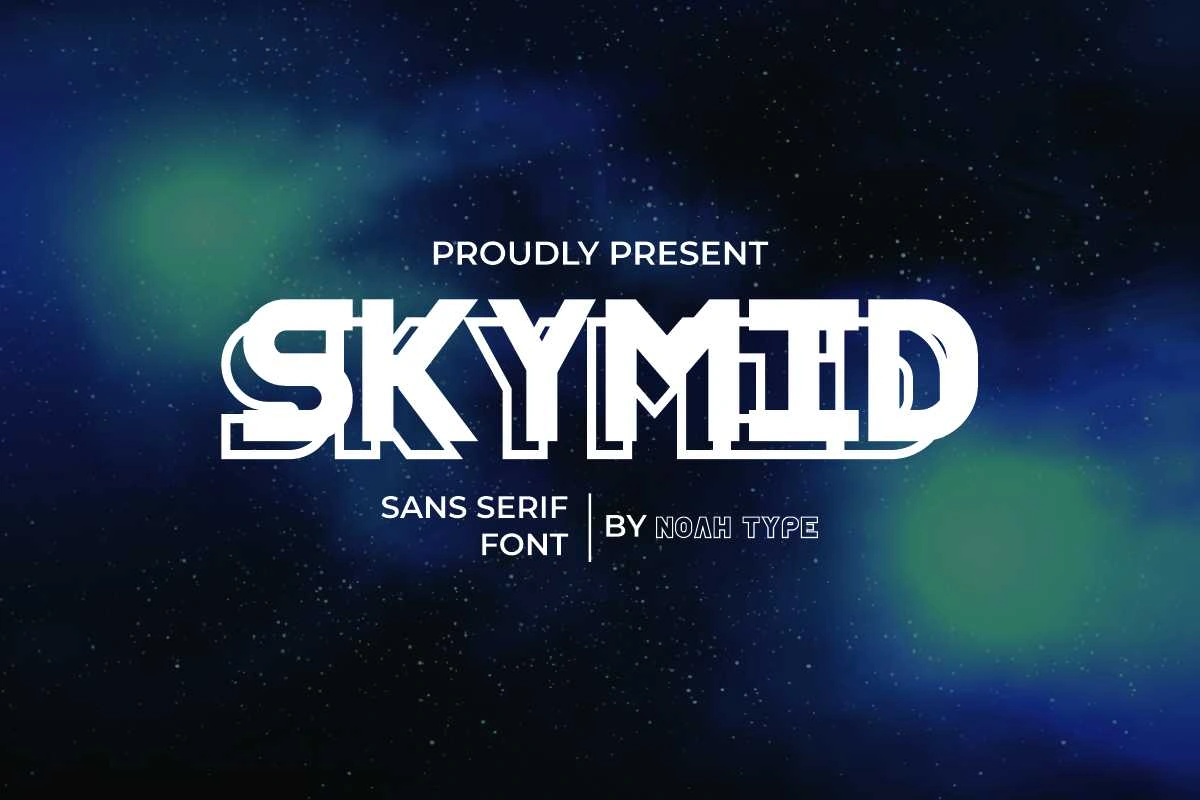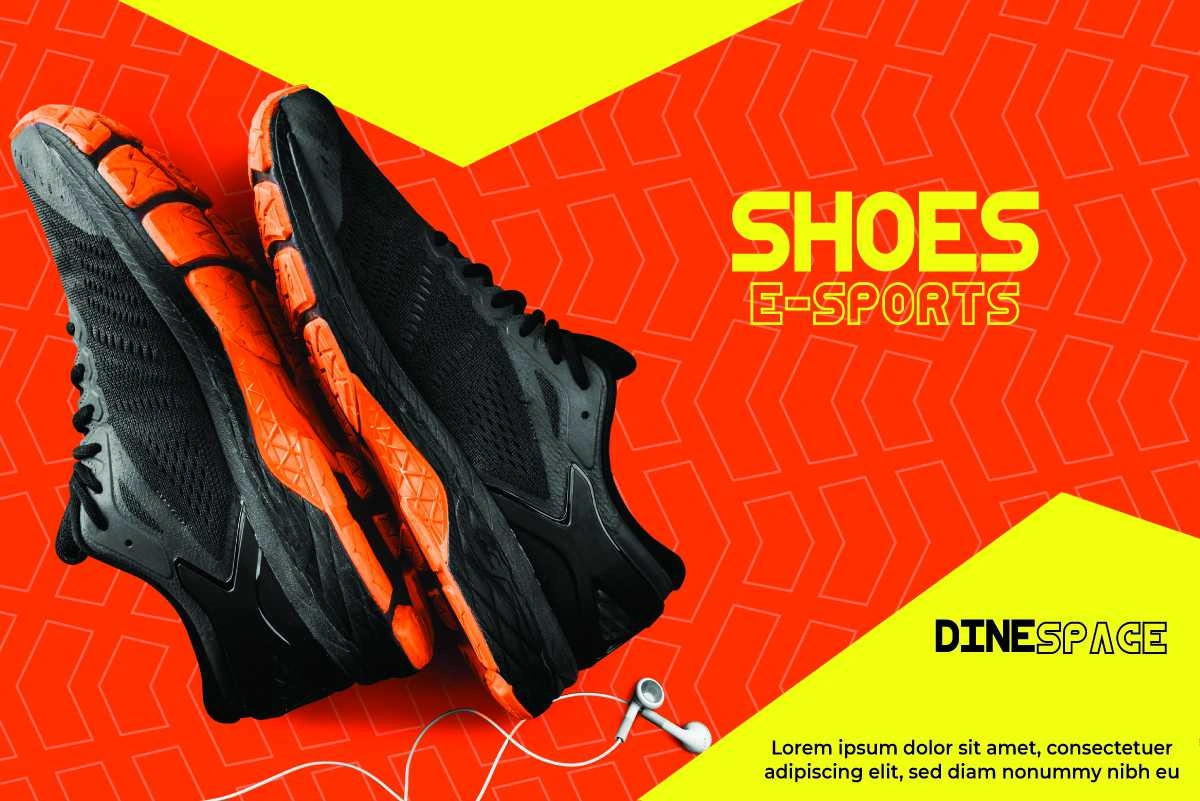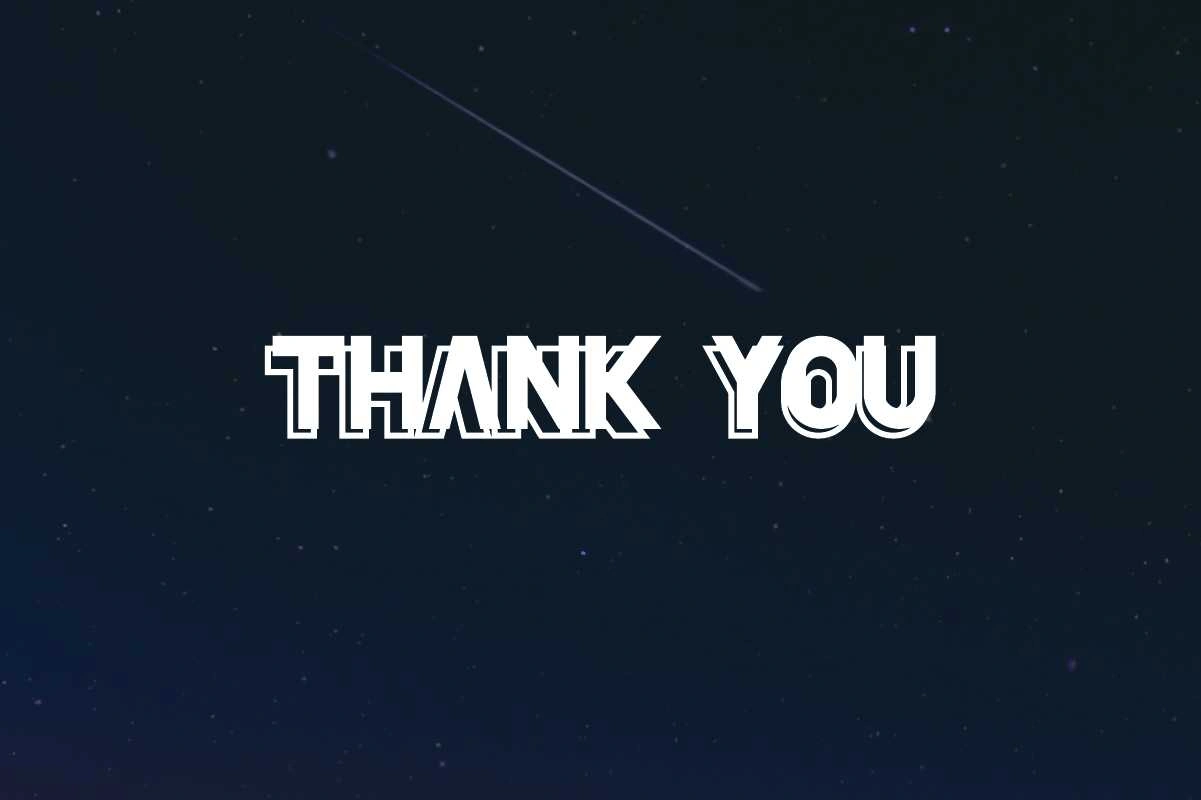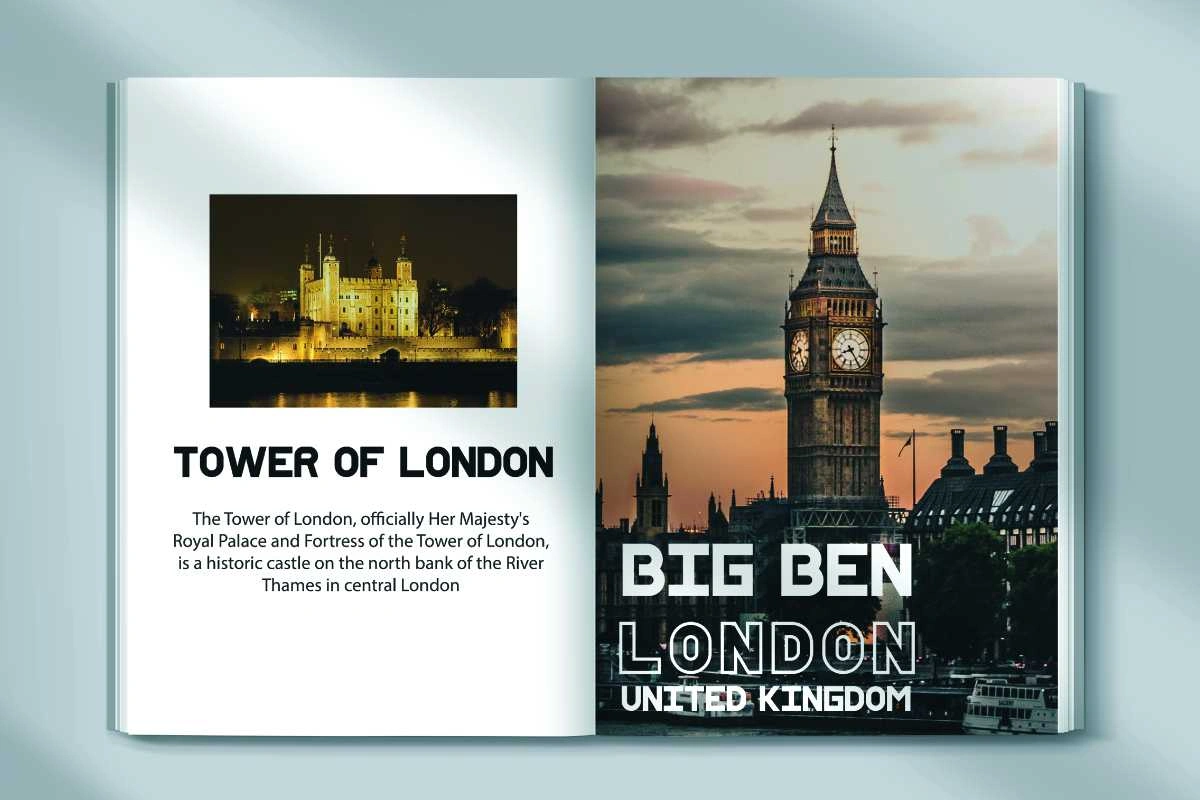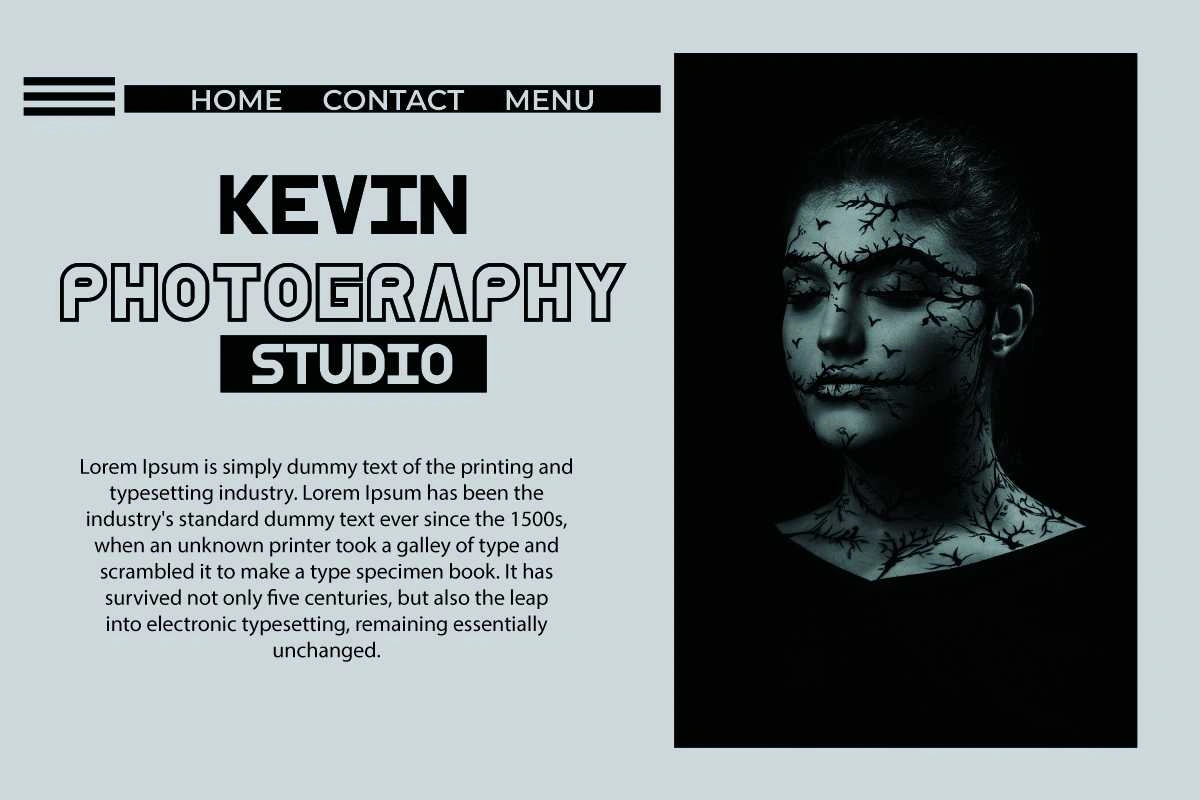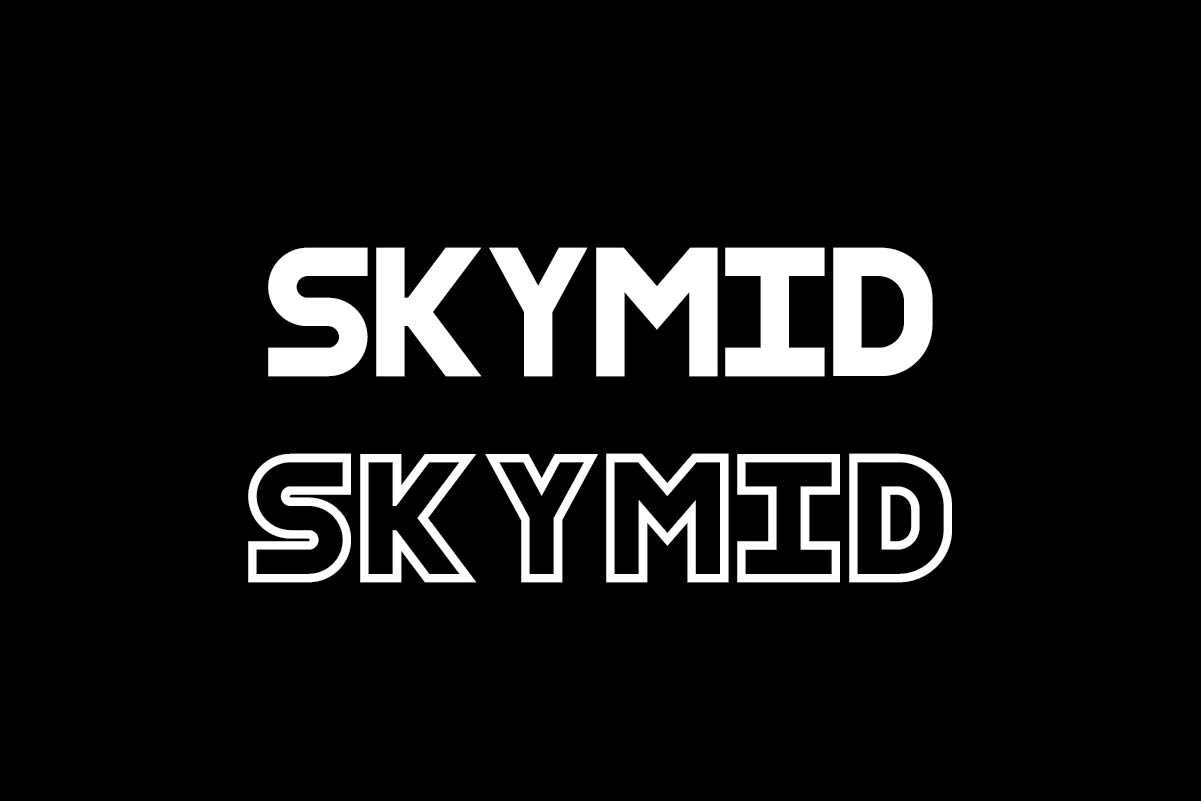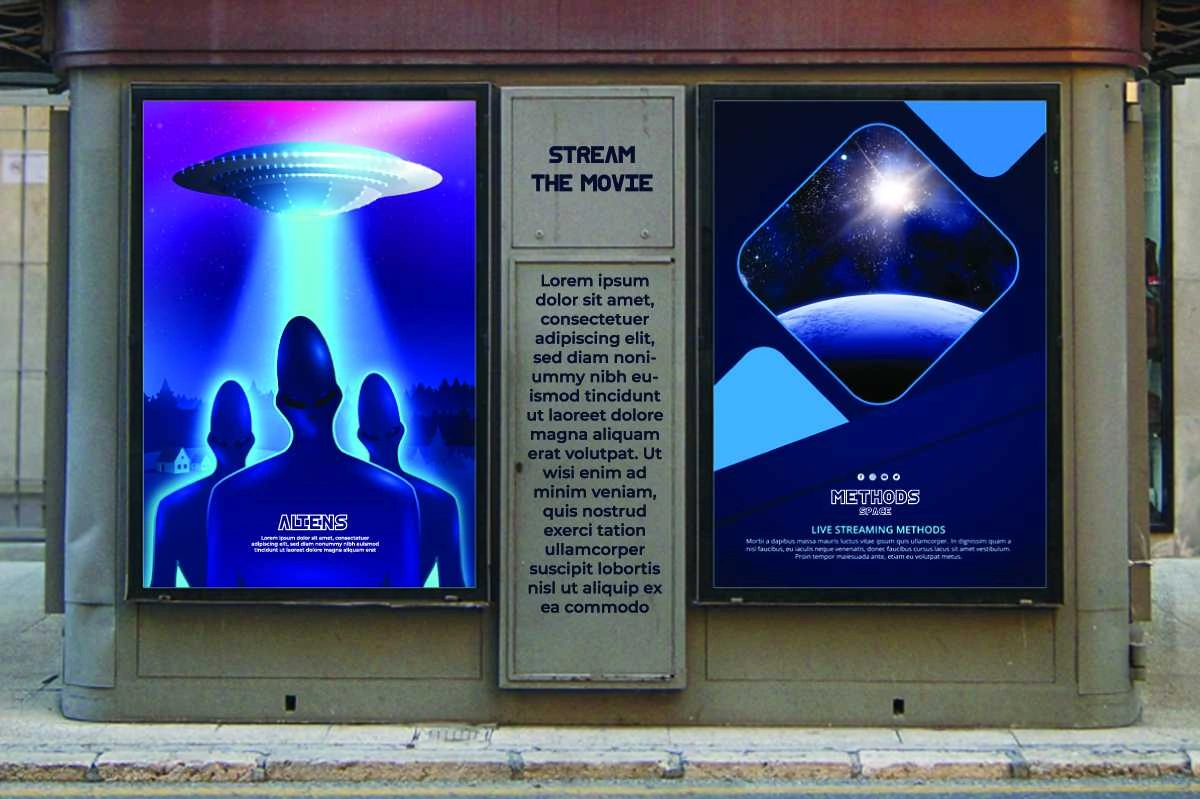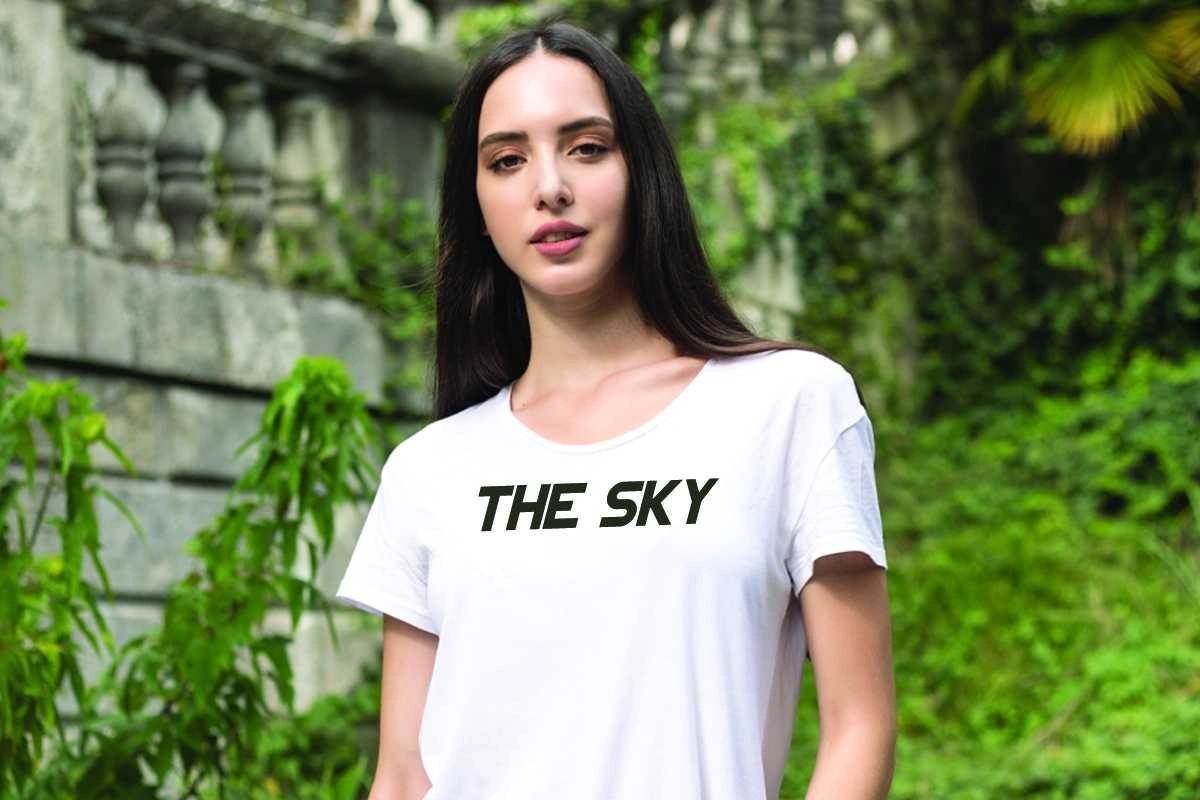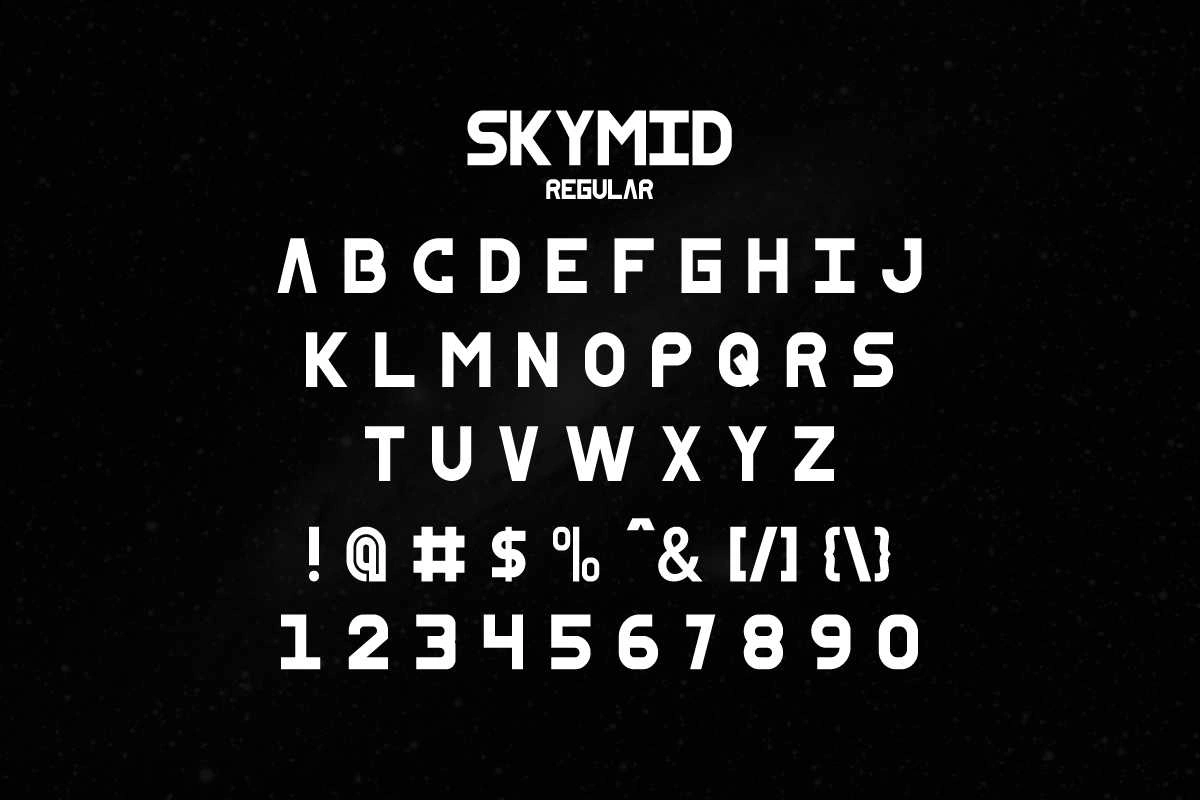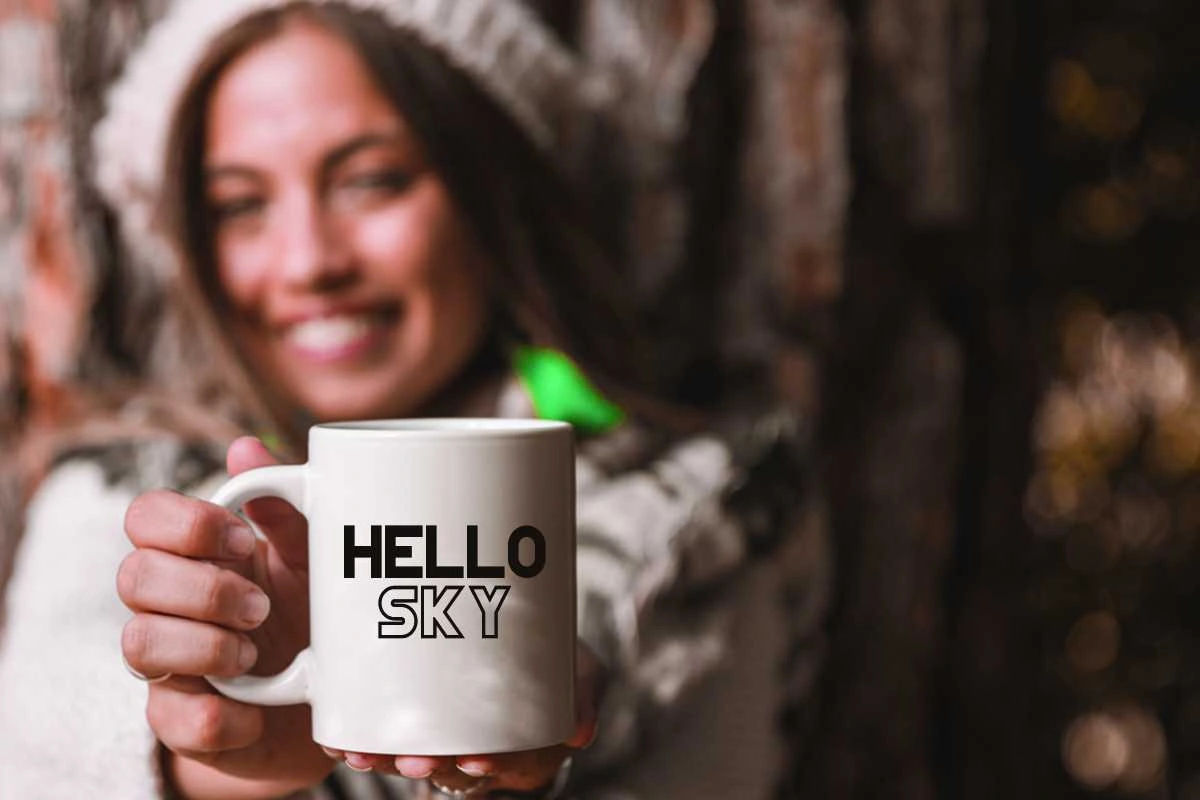
SkyMid is a modern sans serif display font with unique style characters. It has a unique style that will bring the special effect to the design. It will works for games, technology, events, spaceship and any modern things. SkyMid Font includes full set of Uppercase and Lowercase Basic Characters, Numerals and Punctuation. The font is perfect for many projects, headlines, logos, poster, tittle, products, etc. It has two styles : Regular and Outline.